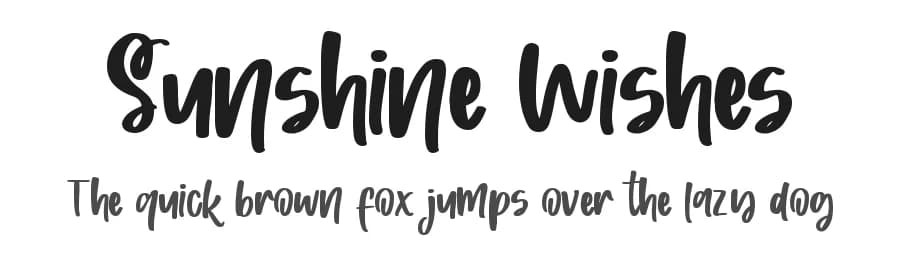
About Sunshine Wishes Font
| Designer | Dimas Prasetyo |
Sunshine Wishes Font is a script font that shines as a display or heading face. Pair it with a clean sans-serif or serif font for body text β the contrast creates a clear hierarchy while the two styles stay balanced and easy to read.
Sunshine Wishes Font
by DM Letter Studio - Dimas Prasetyo